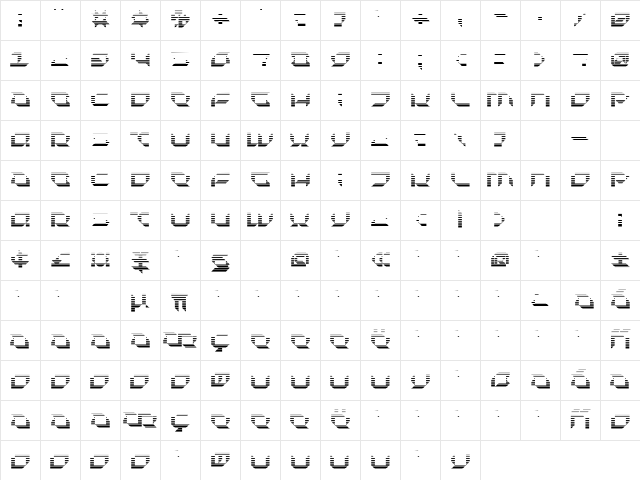
Pluranon Fade
Style: Fade
Pluranon Family
Pluranon Fade
Design Context for Pluranon
Pluranon is a composed and adaptable typeface that performs quietly and consistently across a wide range of design contexts.